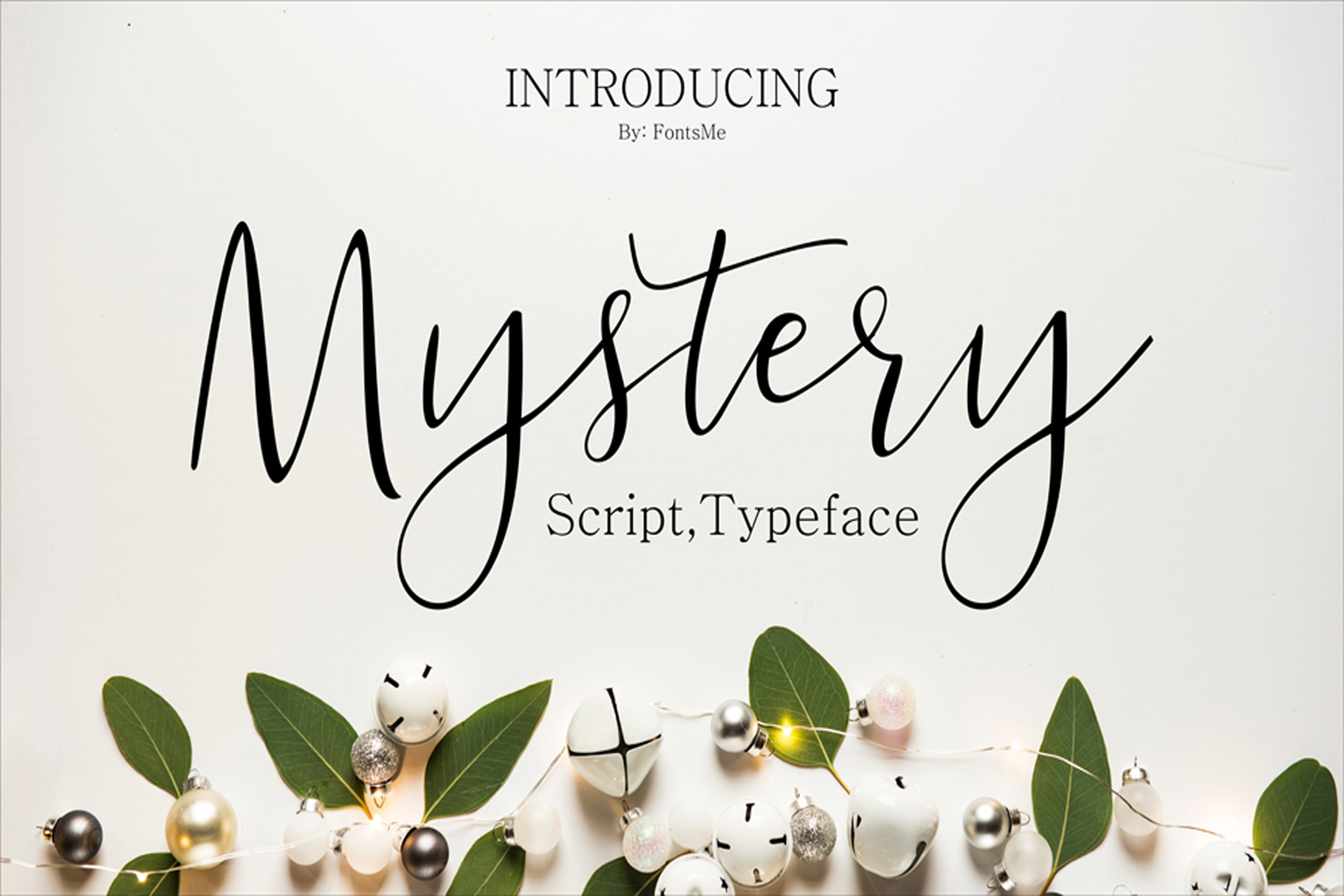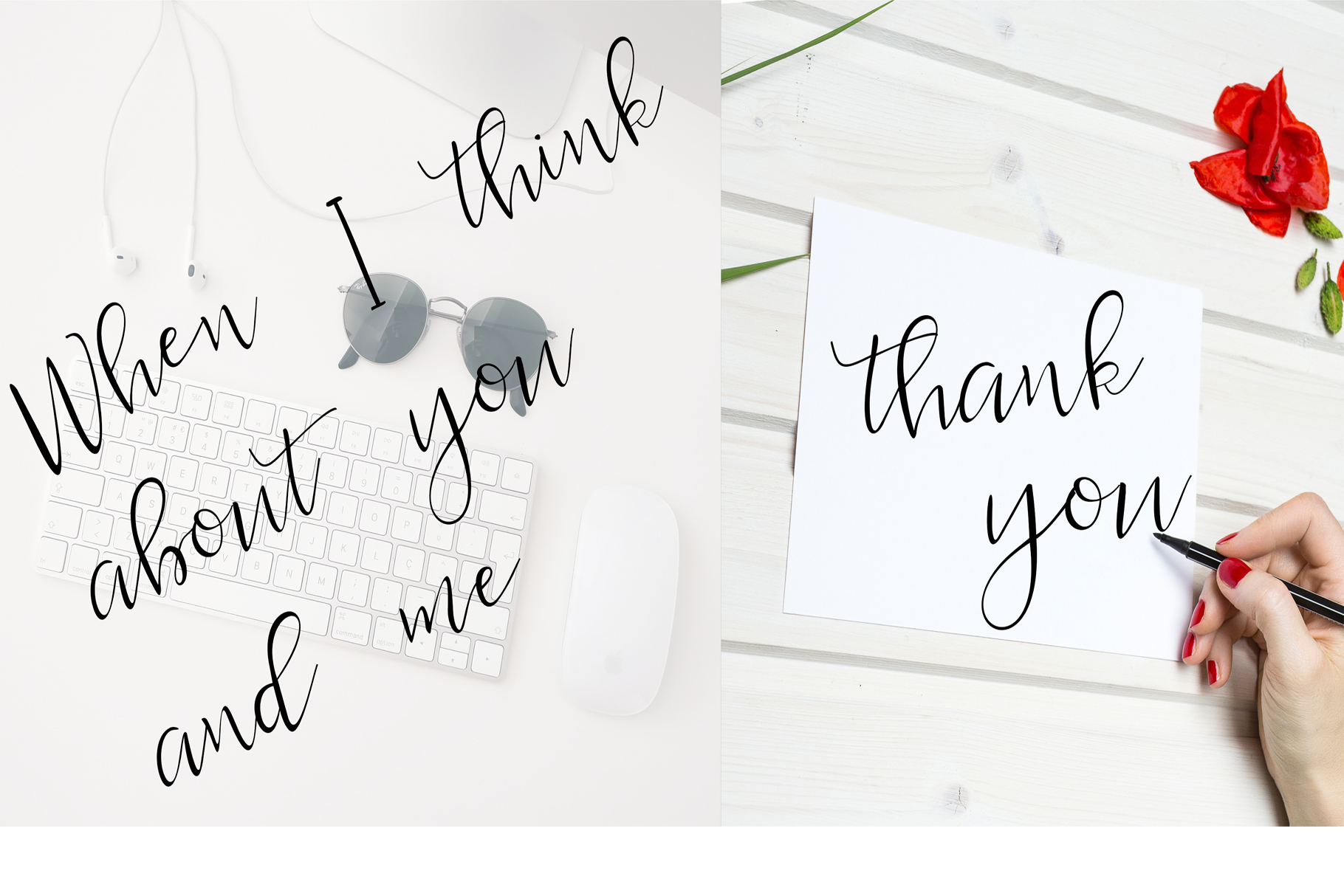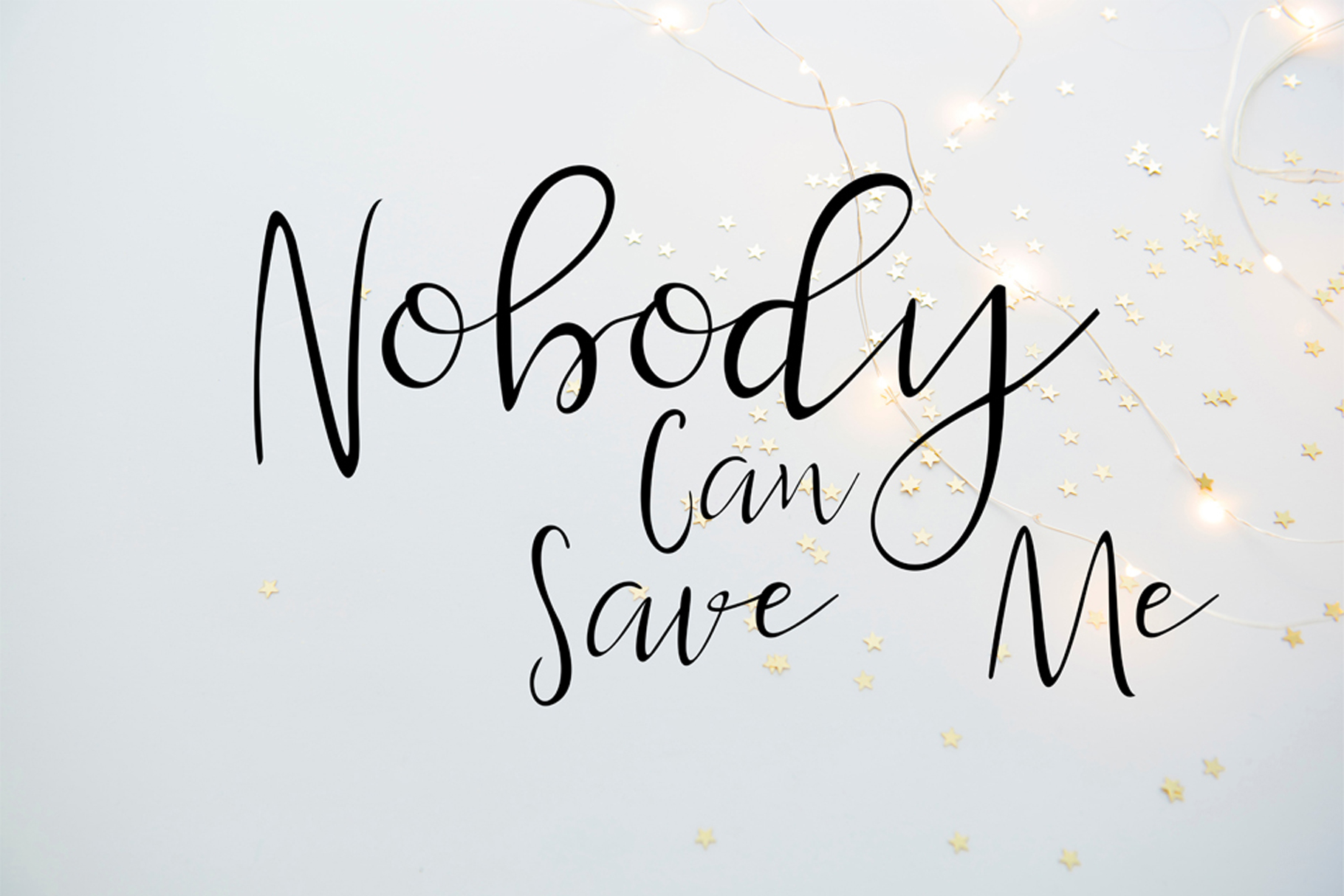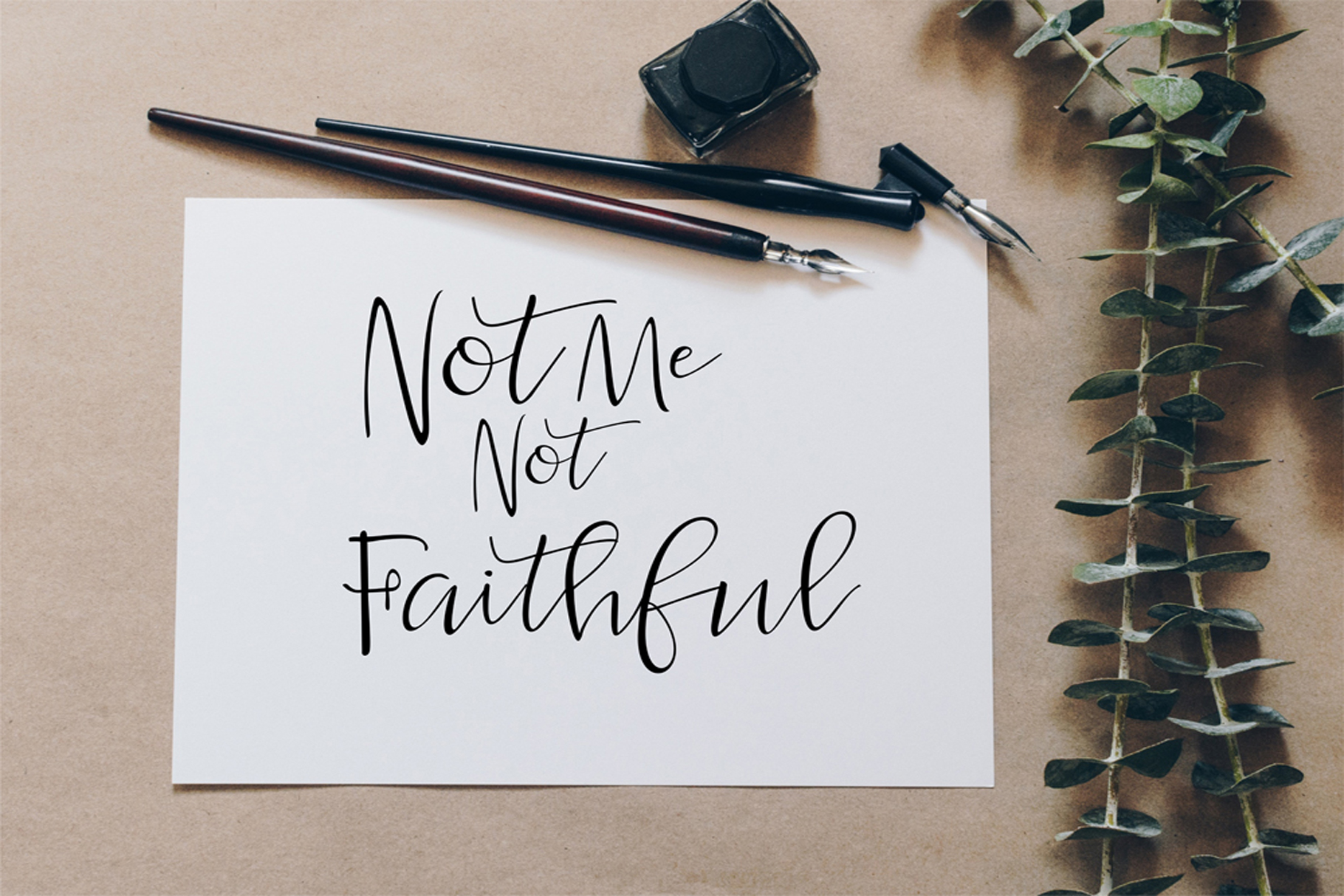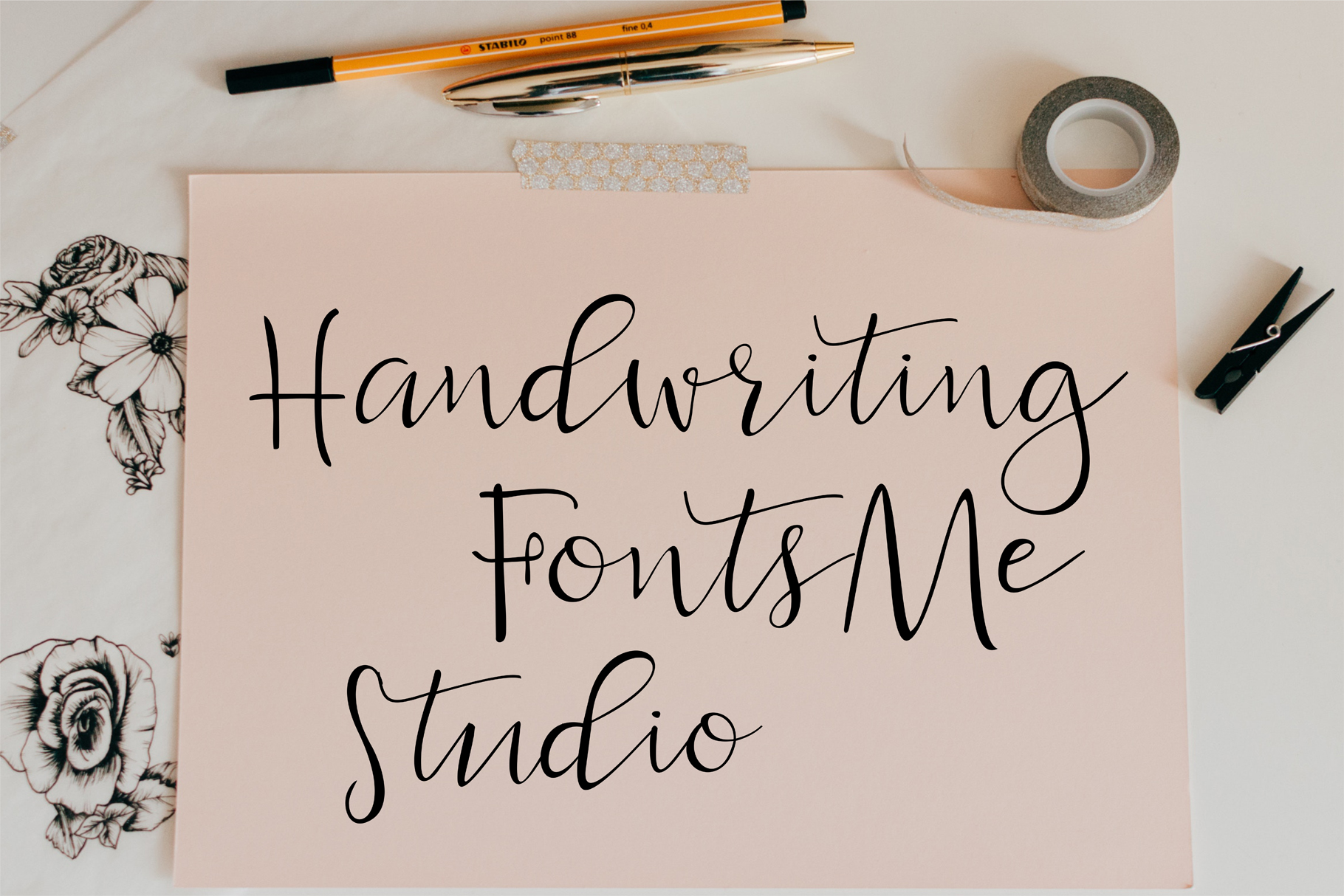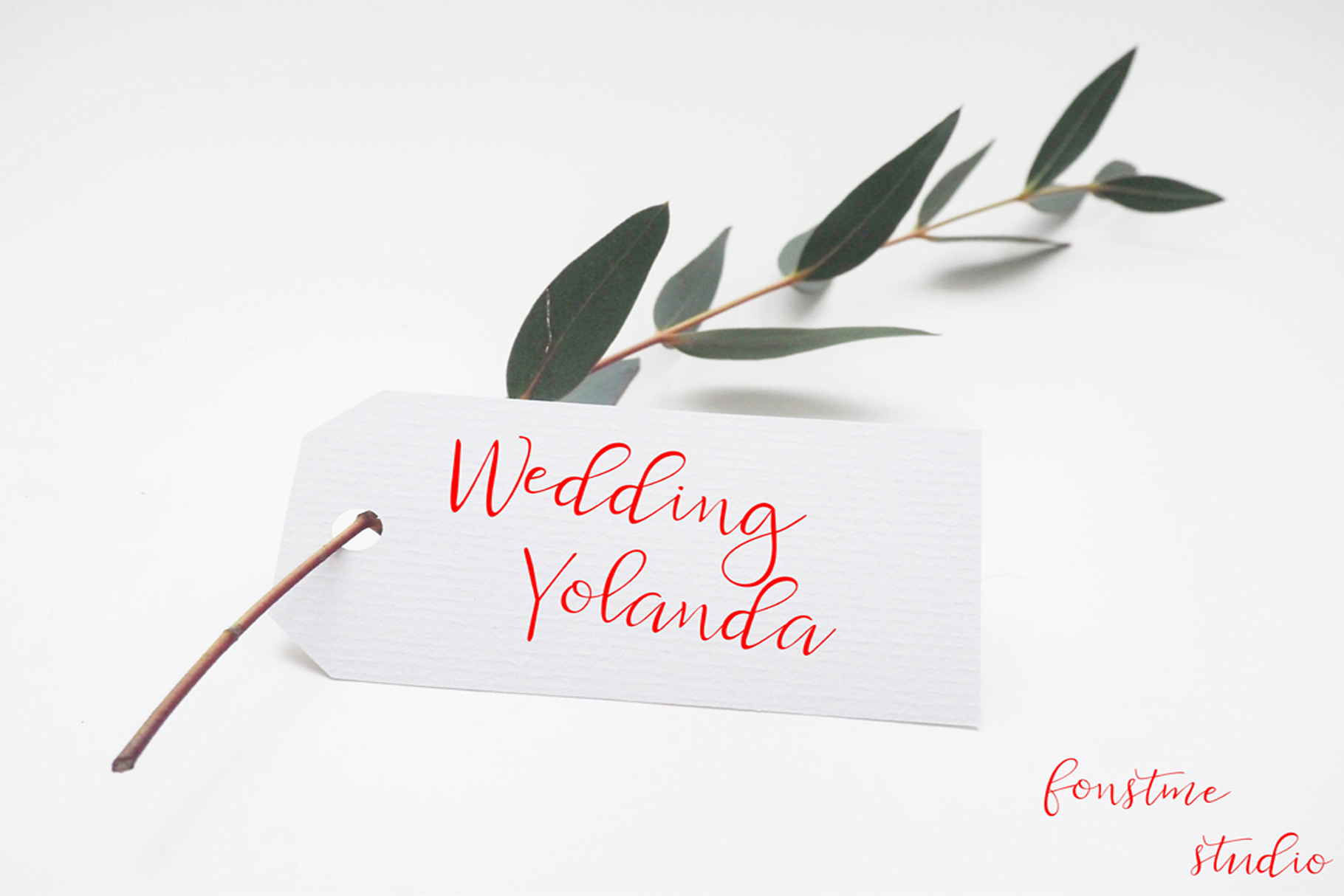
Mystery Font
About Mystery Font
Mystery is a modern calligraphy script that has been attentively written, with gentle curves to produce a font that’s completely distinctive and original. It contains a full set of lower & uppercase letters, making it perfect for adding an elegant and unique touch to your lettering projects and more.